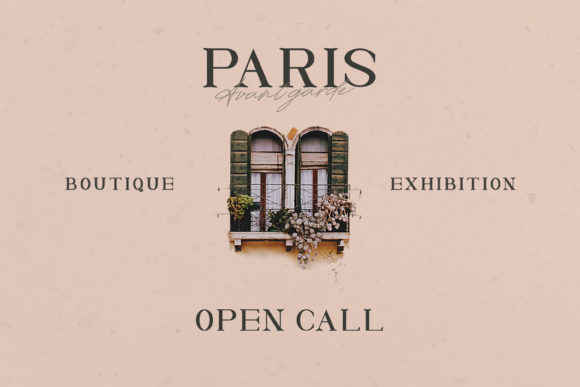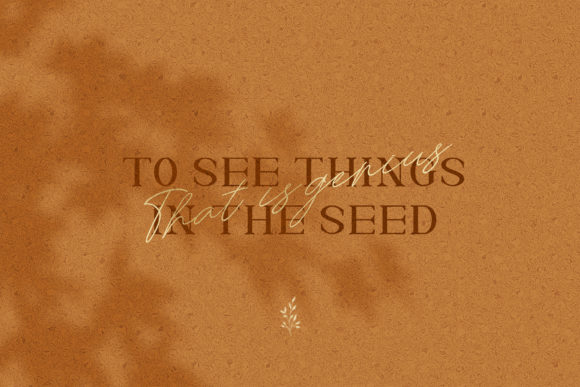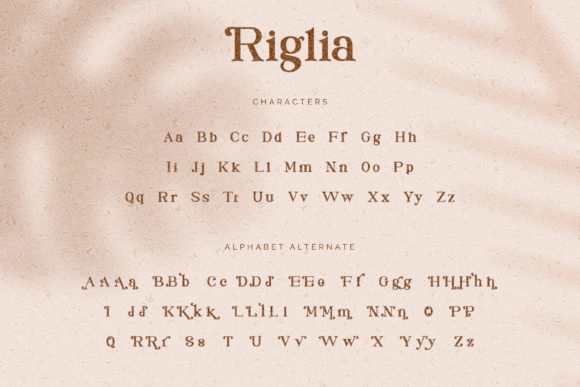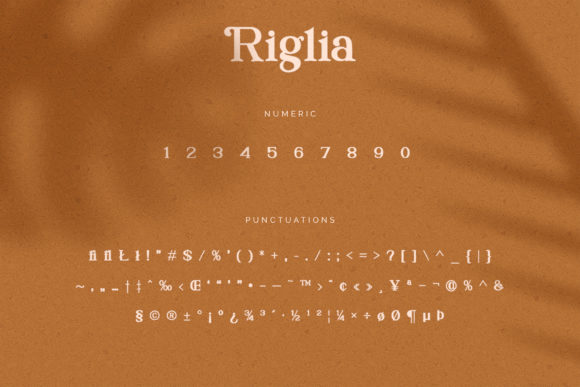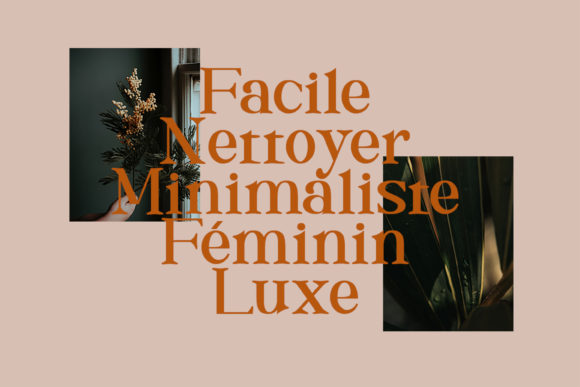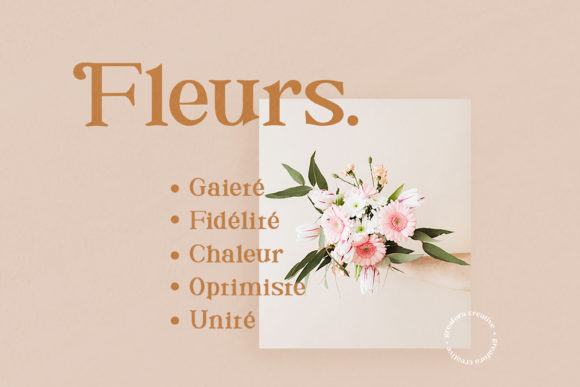
Introduction to Riglia Font
Riglia is an elegant, luxurious serif font.
This font is PUA encoded which means you can access all of the glyphs and swashes with ease Fall for its ravishing style and use it to create gorgeous designs.
Key Features of Riglia Font
Why Choose Riglia Font?
Riglia Font offers exceptional quality and versatility, making it a valuable addition to your design toolkit. Whether you’re creating for personal projects or commercial use, Riglia Font delivers professional results.